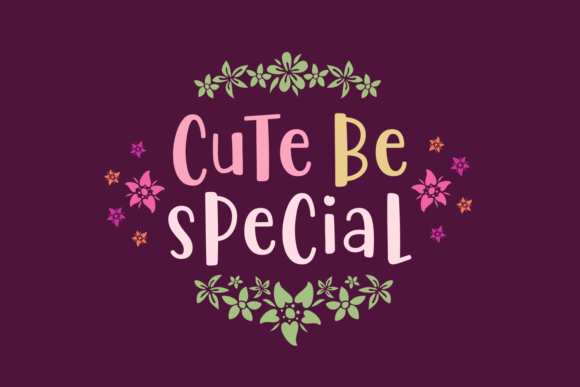
Cute Up Your Designs with Cute Be Special Font
Who hasn’t felt that rush of excitement when you stumble upon the perfect font to bring your creative vision to life? It’s like finding a missing piece of a puzzle, and suddenly, everything falls into place. For designers, this moment is a game-changer. It’s what sets your work apart from the rest and makes it truly special. And, trust us, you’re in luck because we’ve discovered just the thing to elevate your designs – the Cute Be Special Font.
This adorable script typeface is more than just a pretty face. It’s packed with beautiful flourish ornaments that add a touch of whimsy and personality to your work. Whether you’re designing a wedding invitation, a children’s book, or a social media campaign, Cute Be Special Font is the perfect way to make your designs cuter than ever. With its versatility and charm, it’s a valuable addition to any designer’s toolkit.
Cute Be Special Font Key Features
- Font Style: Script Font, with a playful and whimsical feel.
- Unique Characteristics: The font features a unique, hand-drawn design with intricate details and flourishes, adding a touch of personality to any text.
Cute Be Special Font Review
Overall, I was quite excited to dive into the “Cute Be Special Font”. I think the designer has done a great job with creating a visually appealing font that’s perfect for projects that require a playful touch ✨. The font’s unique combination of rounded edges and cute characters makes it a great choice for children’s books, greeting cards, or any other project where you want to convey a sense of warmth and approachability.
Here are some of the things that I think work well with this font:
- Playful and cute characters that are perfect for children’s projects ✨
- Unique and rounded edges that make the font stand out ✨
- Highly customizable, making it easy to adjust the font’s style to fit your project’s needs ✨
However, there are a few limitations that I think are worth mentioning:
- The font can be a bit too playful for more serious or professional projects ⚠️
- The font may not be suitable for projects where a more traditional or formal font is required ⚠️
- The font’s customization options can be overwhelming for beginners, which may make it difficult to use for those who are new to font design ⚠️
Overall, I think the “Cute Be Special Font” is a great addition to any designer’s toolkit, but it’s not without its limitations. With a bit of creativity and experimentation, I think this font can be used to create some truly unique and eye-catching designs.
For the best results, use Cute Be Special Font in designs that require a playful and whimsical touch, such as children’s birthday invitations, greeting cards, and social media graphics. You can also use it to add a touch of personality to your branding and marketing materials.